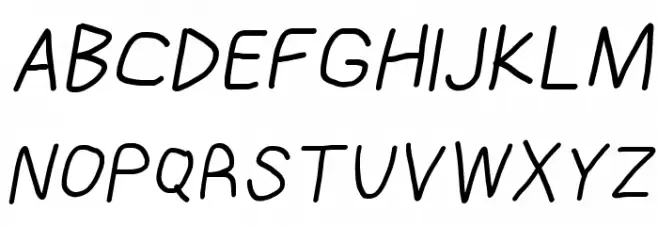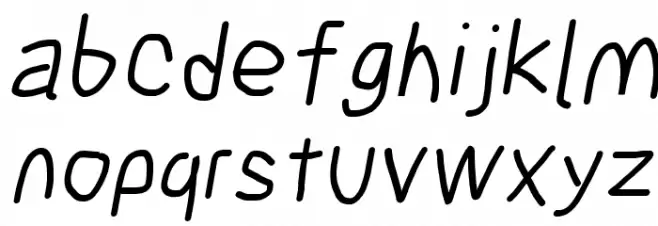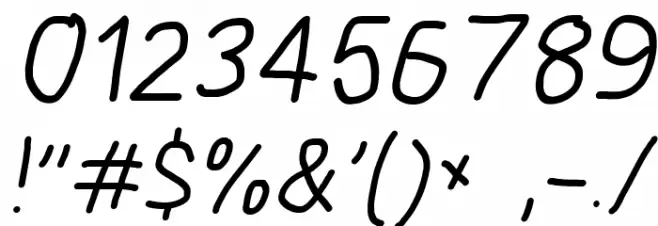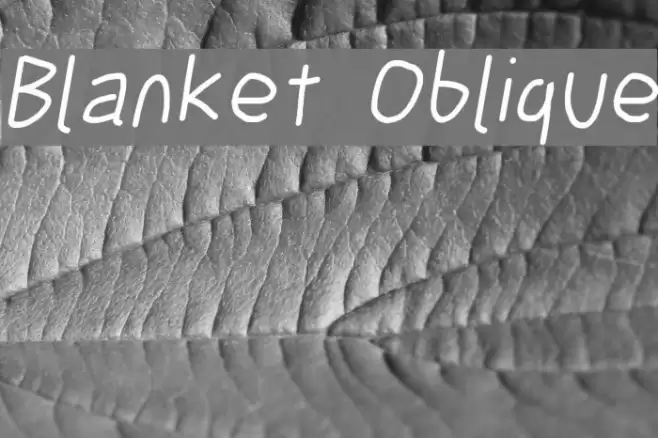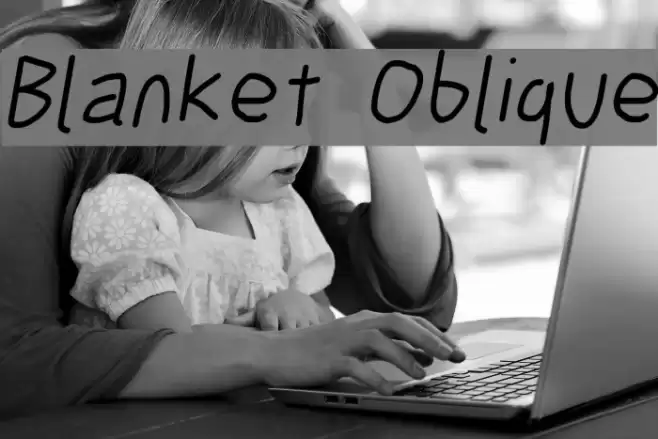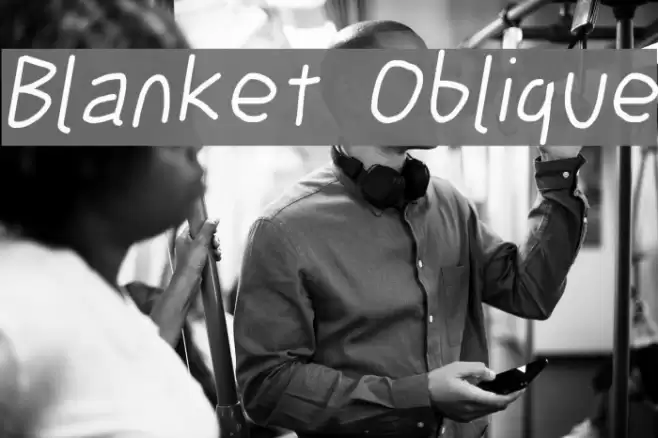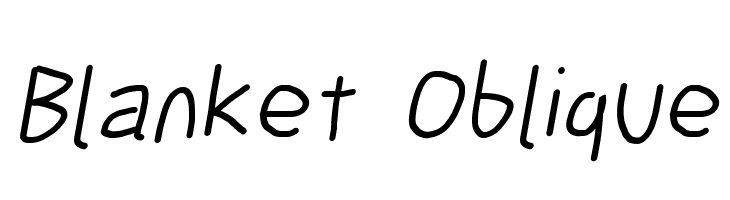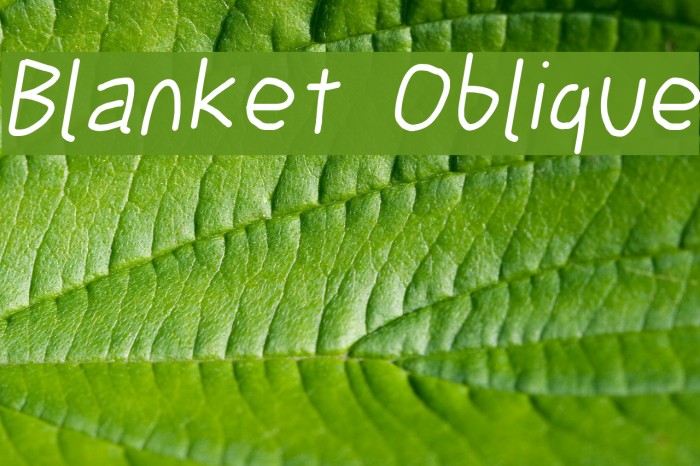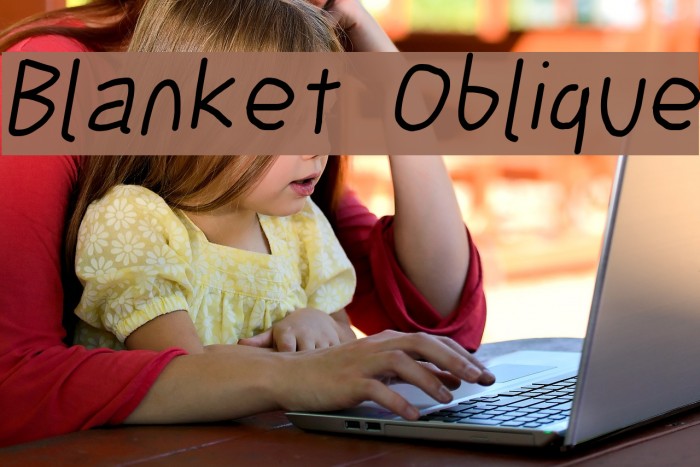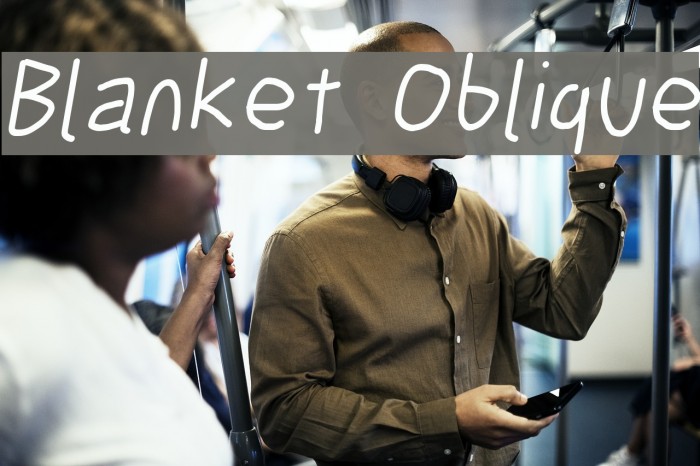
Blanket Oblique
This font features a playful and casual handwritten style with a slight oblique slant, giving it a dynamic and informal appearance. The characters are smooth and rounded, with consistent stroke widths that maintain a uniform look throughout. The uppercase letters are bold and prominent, while the lowercase letters are slightly more compact, creating a harmonious balance. The numerals are clear and easy to read, matching the overall style of the alphabet. Special characters are included, maintaining the same playful and approachable aesthetic. This font is versatile, suitable for projects that require a friendly and informal touch.
A playful, handwritten oblique font with smooth, rounded characters.
- Proposed Projects: Ideal for greeting cards, children's books, casual branding, and social media graphics.
- Overall Style: Casual
- Use Case: Headlines, Informal text, Branding